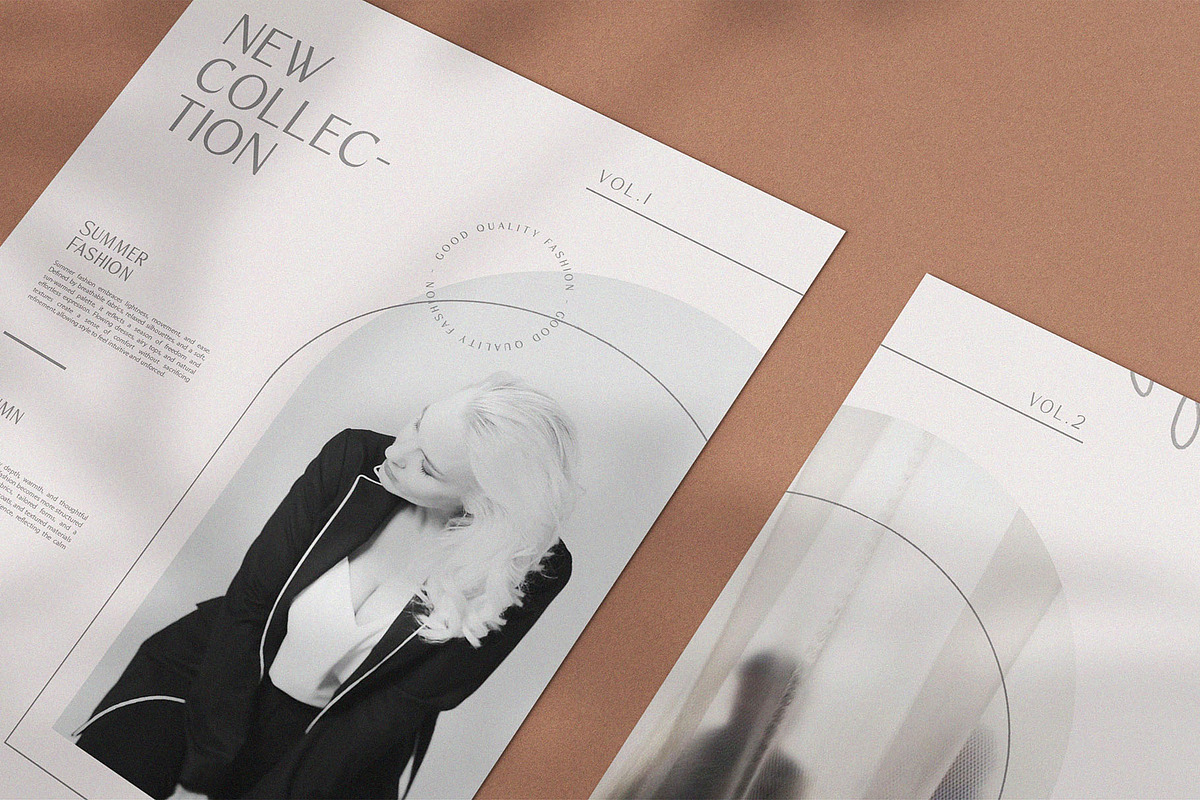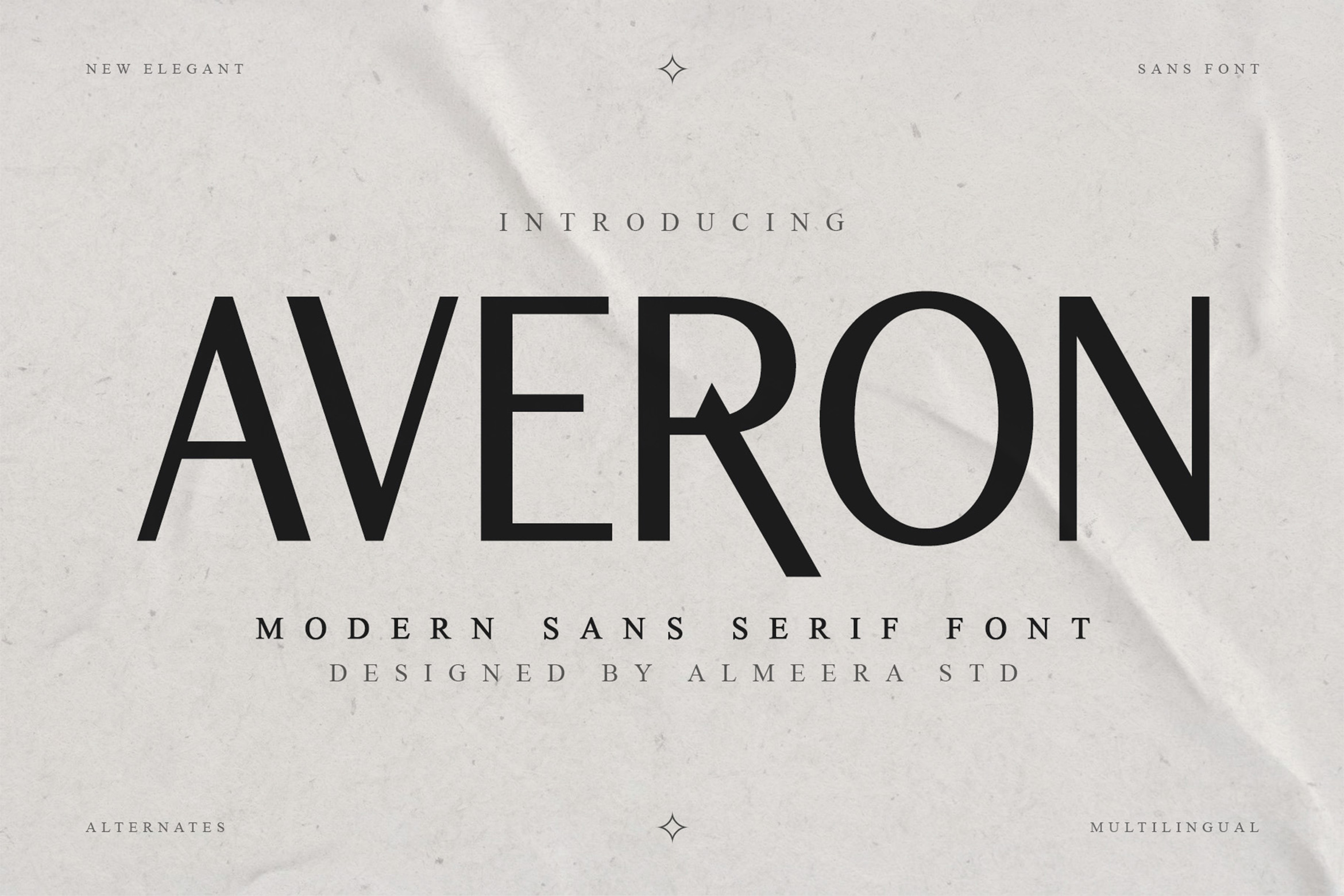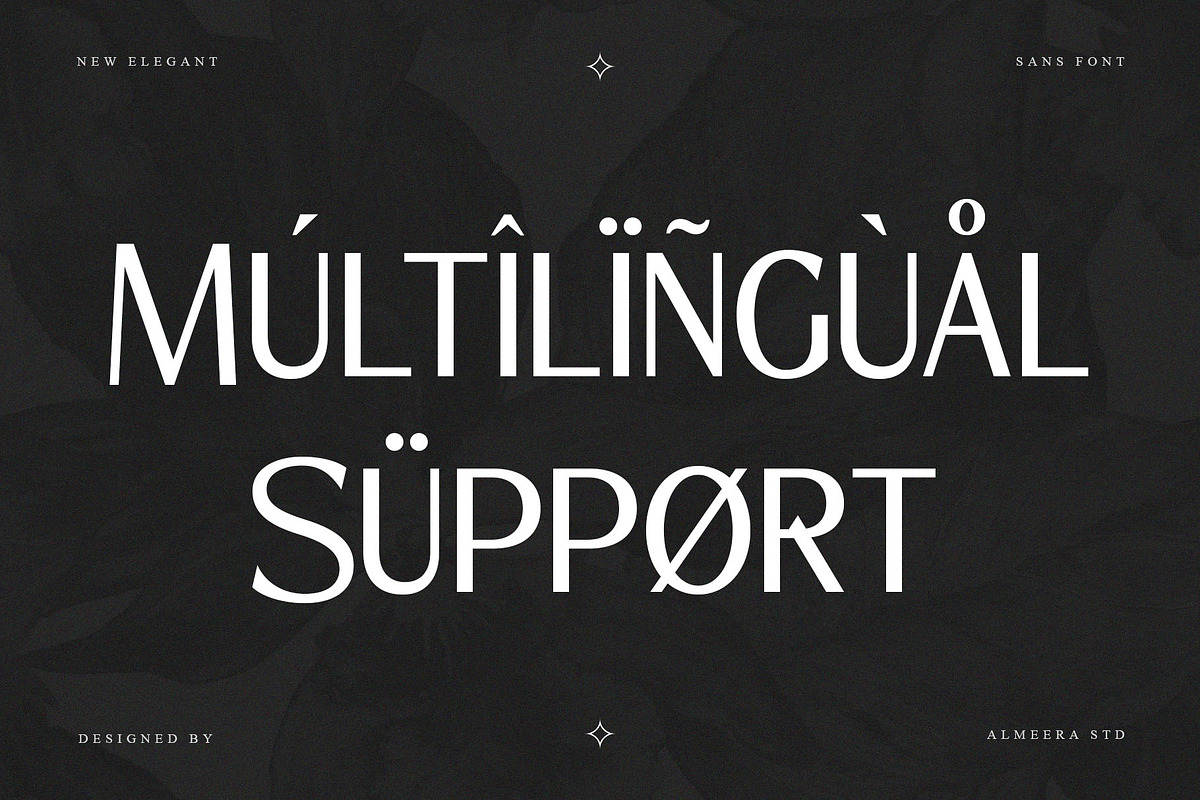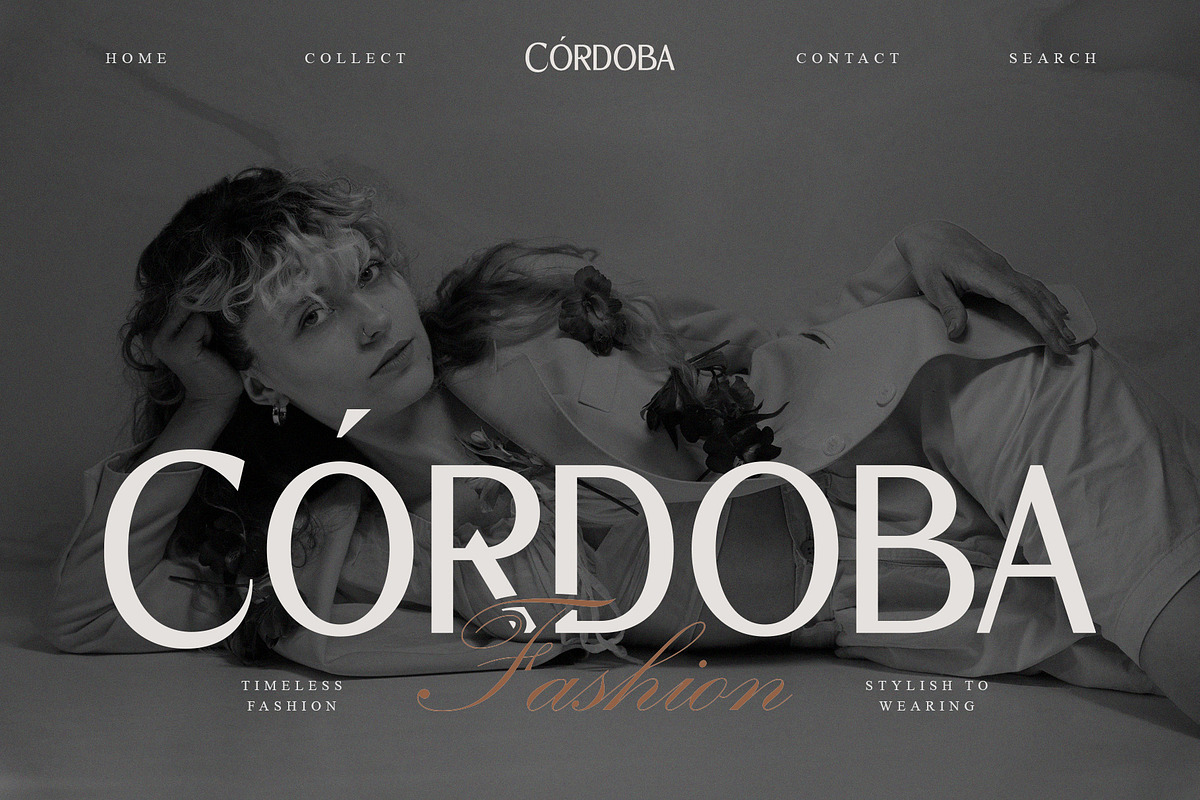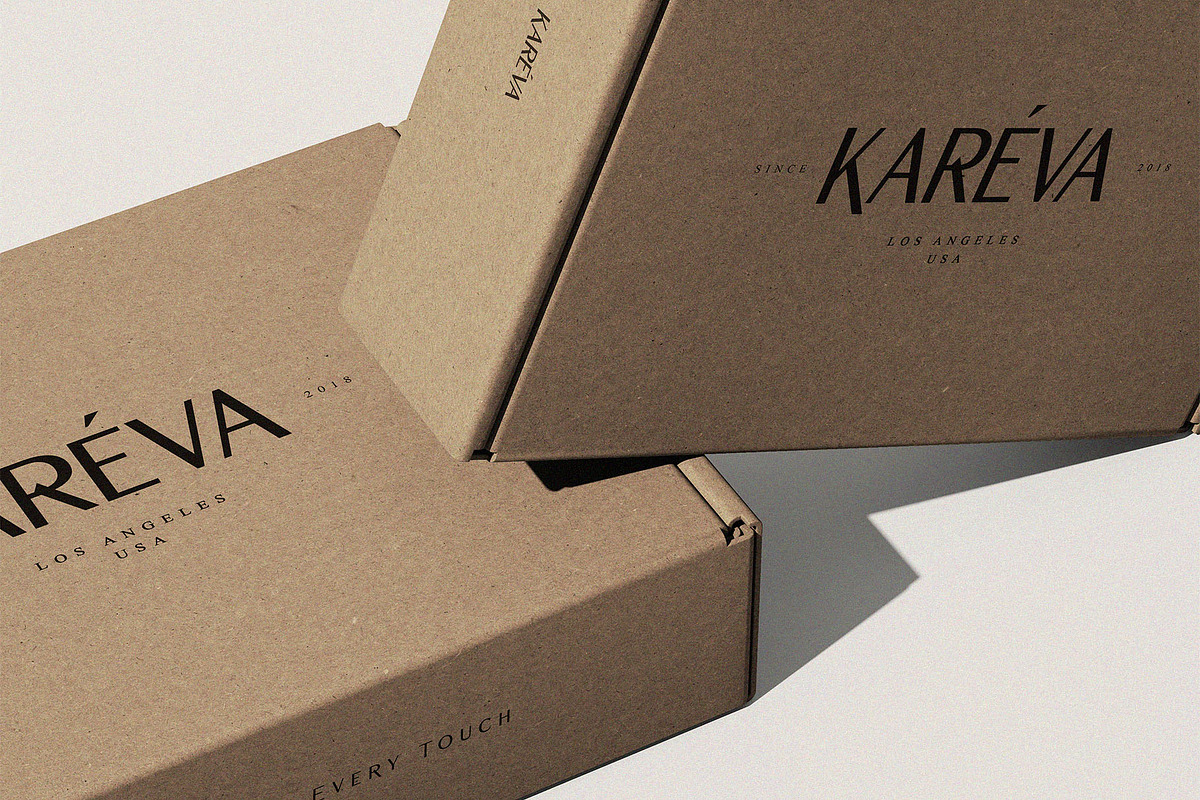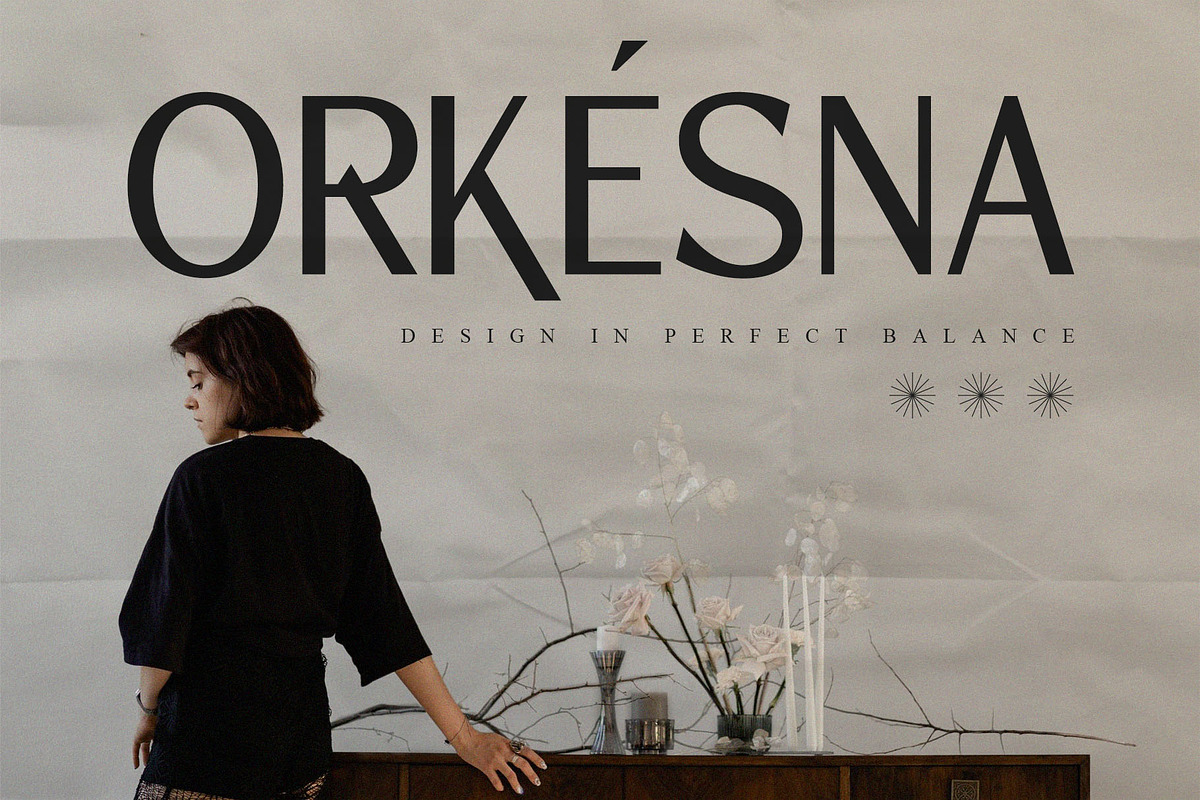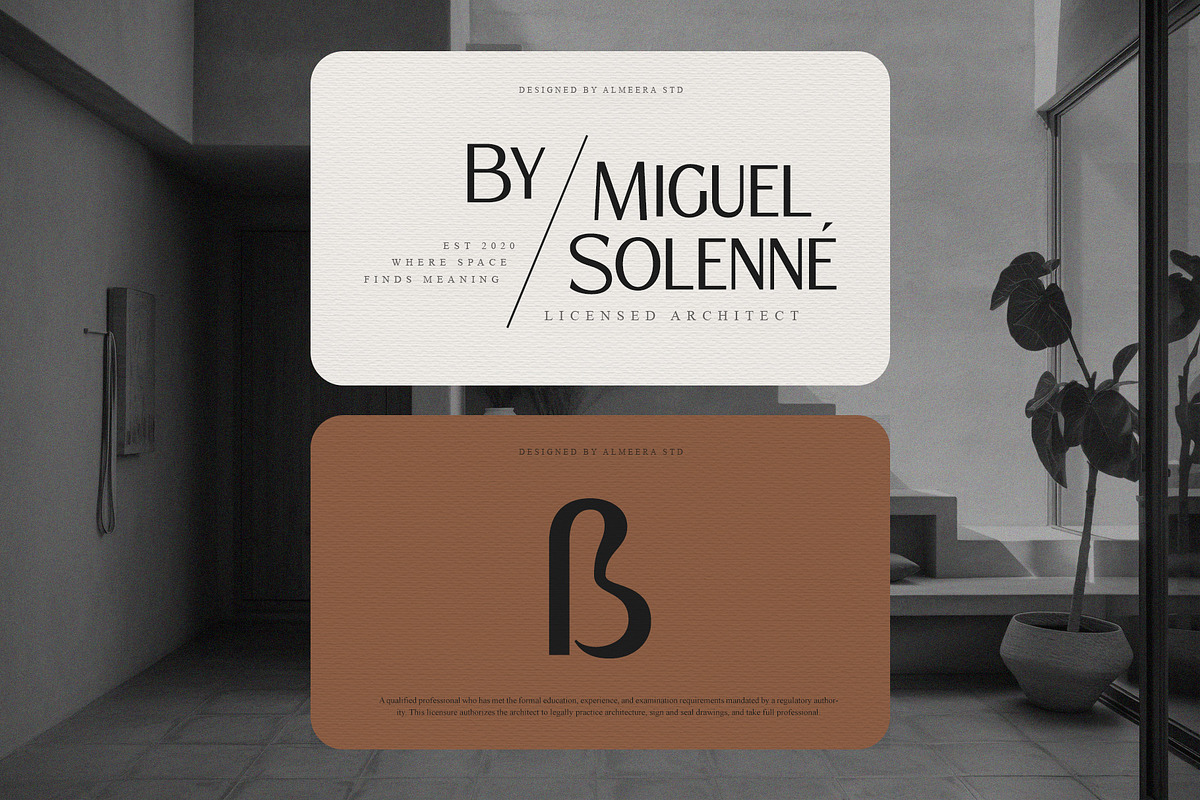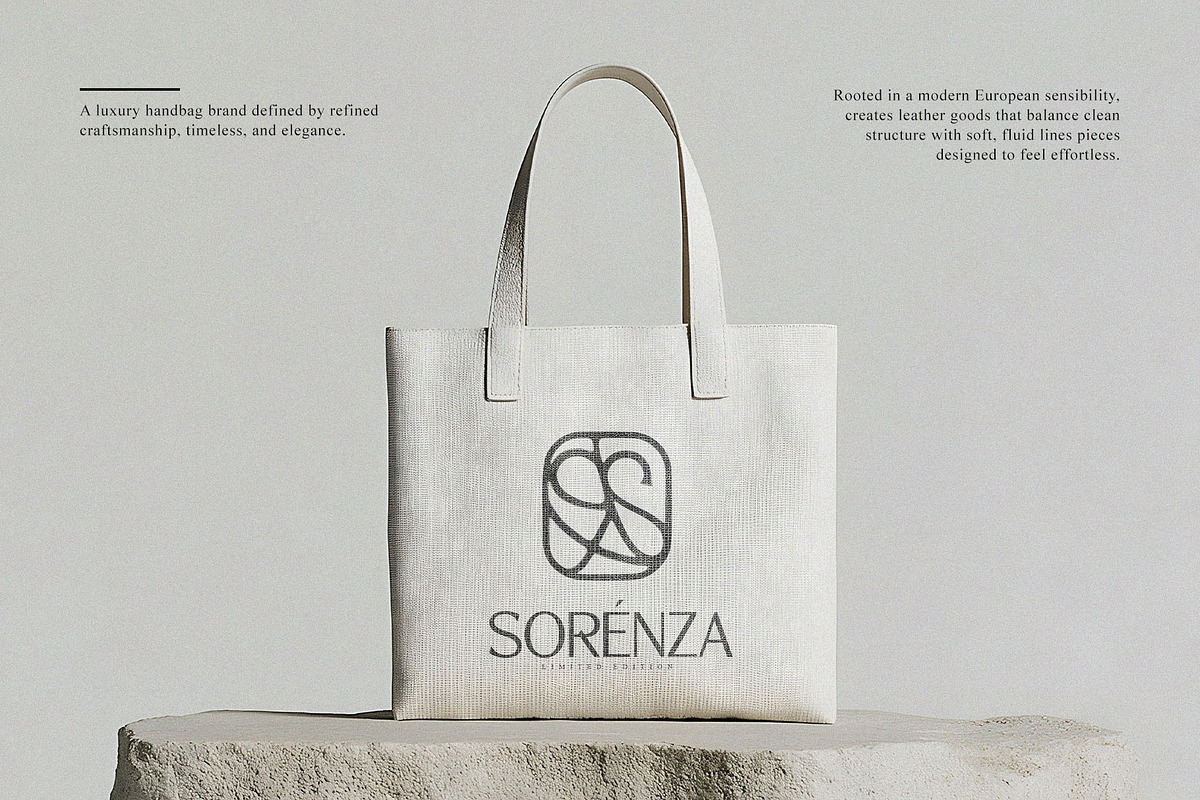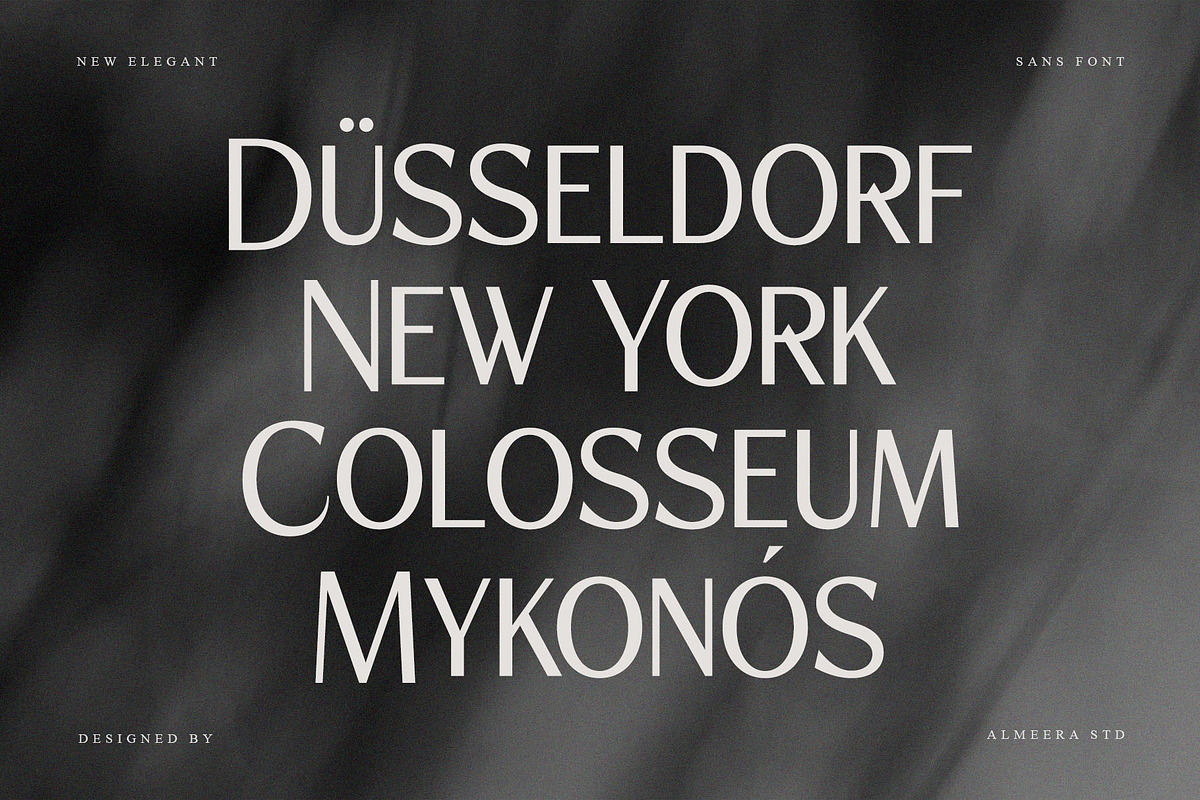
Averon – Modern Sans Serif Font
Averon is a clean and elegant modern sans serif font designed with precision, balance, and contemporary clarity. Its minimal construction and refined geometry create a professional visual tone that feels timeless yet modern. Averon emphasizes readability while maintaining a strong aesthetic presence, making it a dependable choice for structured and modern design systems.
With its sleek letterforms and harmonious spacing, Averon performs exceptionally well in branding projects, editorial layouts, headlines, digital interfaces, and visual identities. Multilingual support and consistent proportions ensure flexibility across global and commercial creative applications.